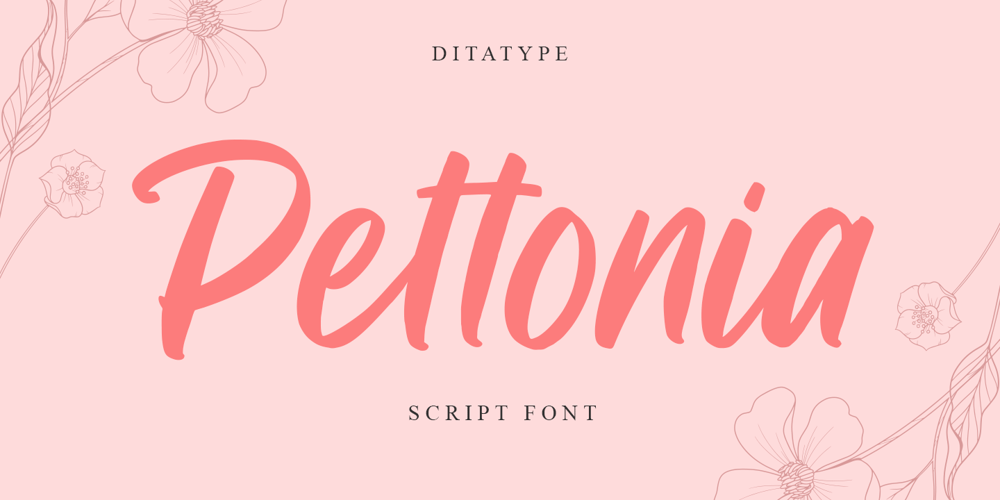
Pettonia
Pettonia font
Pettonia Font Family was designed by Donis Miftahudin and published by Ditatype. Pettonia contains 1 styles and family package options. Pettonia is a classy script font. Made for any professional project branding. It is the best for logos, branding and quotes. Every letter has a unique and beautiful touch.Features: Ligature Multilingual Support PUA Encoded Numerals and Punctuation Thank you for downloading premium fonts from Dita Type